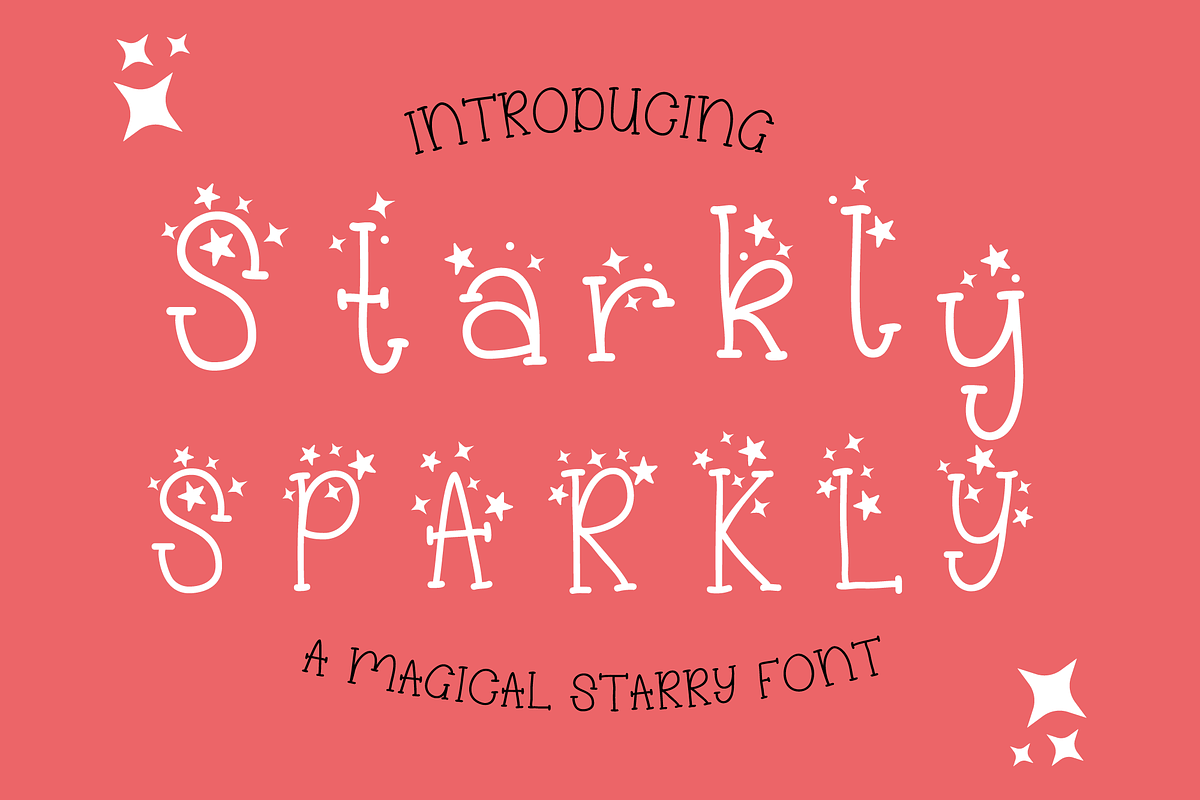
Starkly Sparkly Stars Font Free Download
Magical, dazzling, and full of whimsy, Starkly Sparkly Stars Font Free Download is a fun and enchanting typeface that adds a touch of sparkle to any design. Perfect for children’s projects, holiday cards, event invitations, party decorations, and anything that needs a bit of extra magic, this font features stars and twinkling effects throughout the letterforms.
With its playful, shimmering design, Starkly Sparkly Stars is perfect for projects that need to feel festive, whimsical, or celebratory. Whether you’re designing a starry night logo, a magical invitation, or a social media graphic with a touch of fantasy, this font brings the sparkle you need.